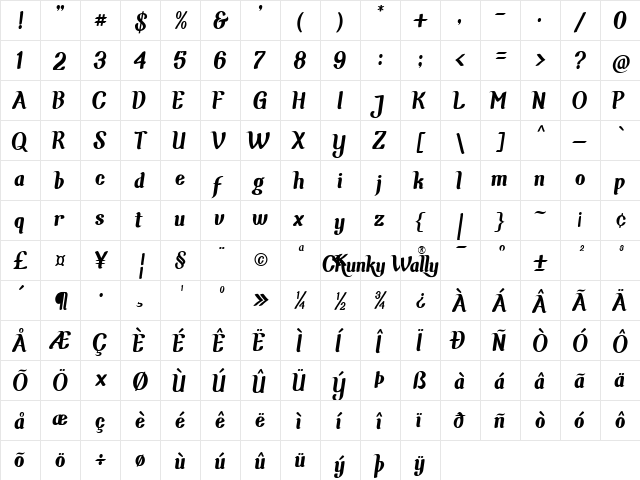
Chunky Wally Demo Regular
| Designer | Patria Ari Wijonarko |
Design Context for Chunky Wally Demo Typeface
Chunky Wally Demo is a composed and adaptable typeface that performs quietly and consistently across a wide range of design contexts.